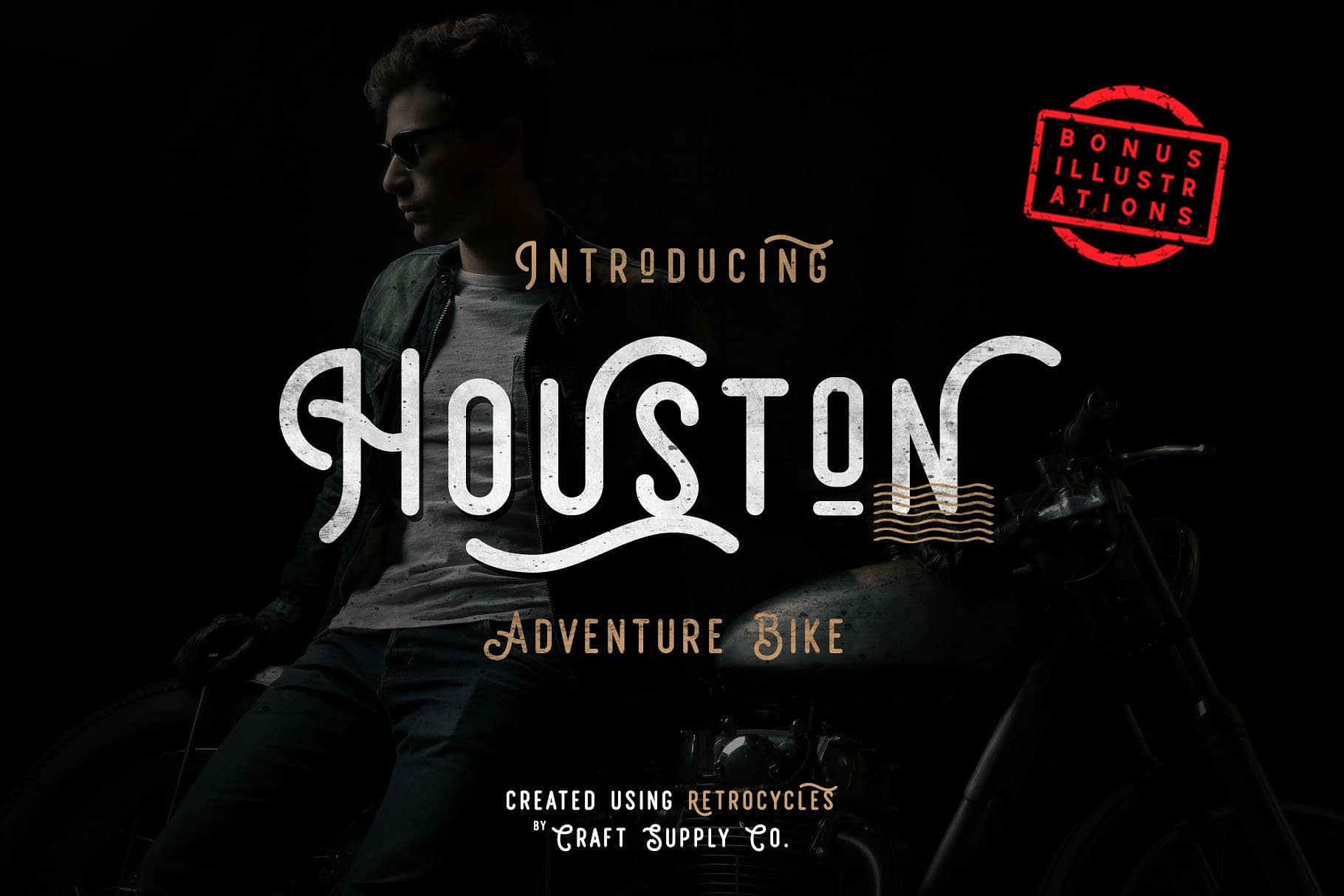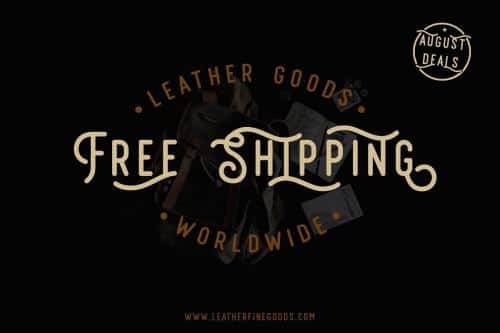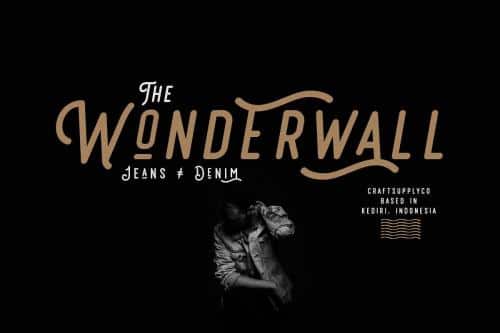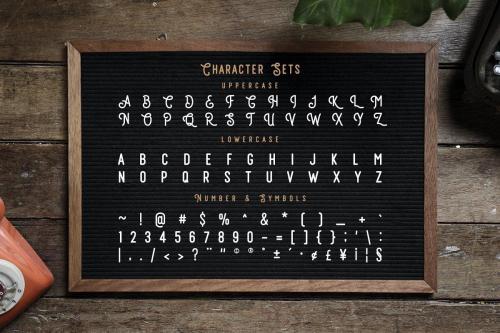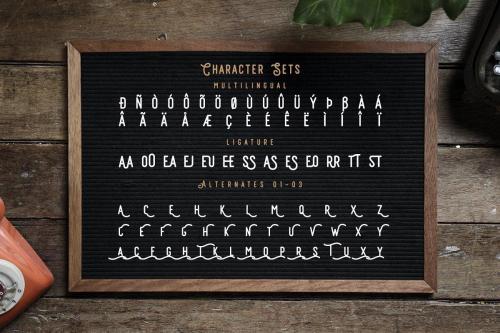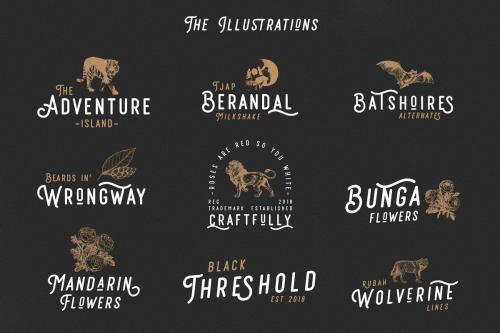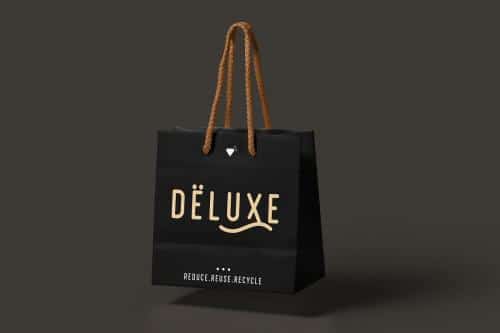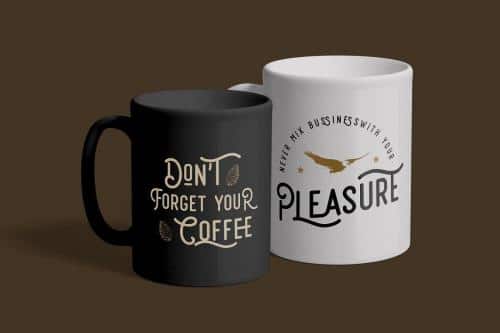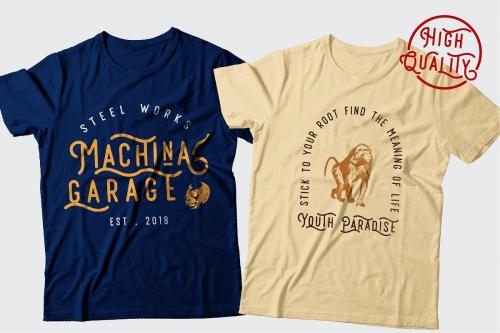
Introducing Retrocycles + Bonus Illustrations. It can be used to create almost all types of design projects like print materials. Just use your imagination and some graphic design set in Extras, your project will become more alive and look great than ever with Retrocycles Font.
You want to make a greeting card or a package design, or even a brand identity, craft design, any DIY project, book title, wedding font, pop vintage design, retro design or any purpose to make your art / design project look pretty and trendy? Feel free to play with all the patterns and shape!
- Designer: Craft Supply Co.